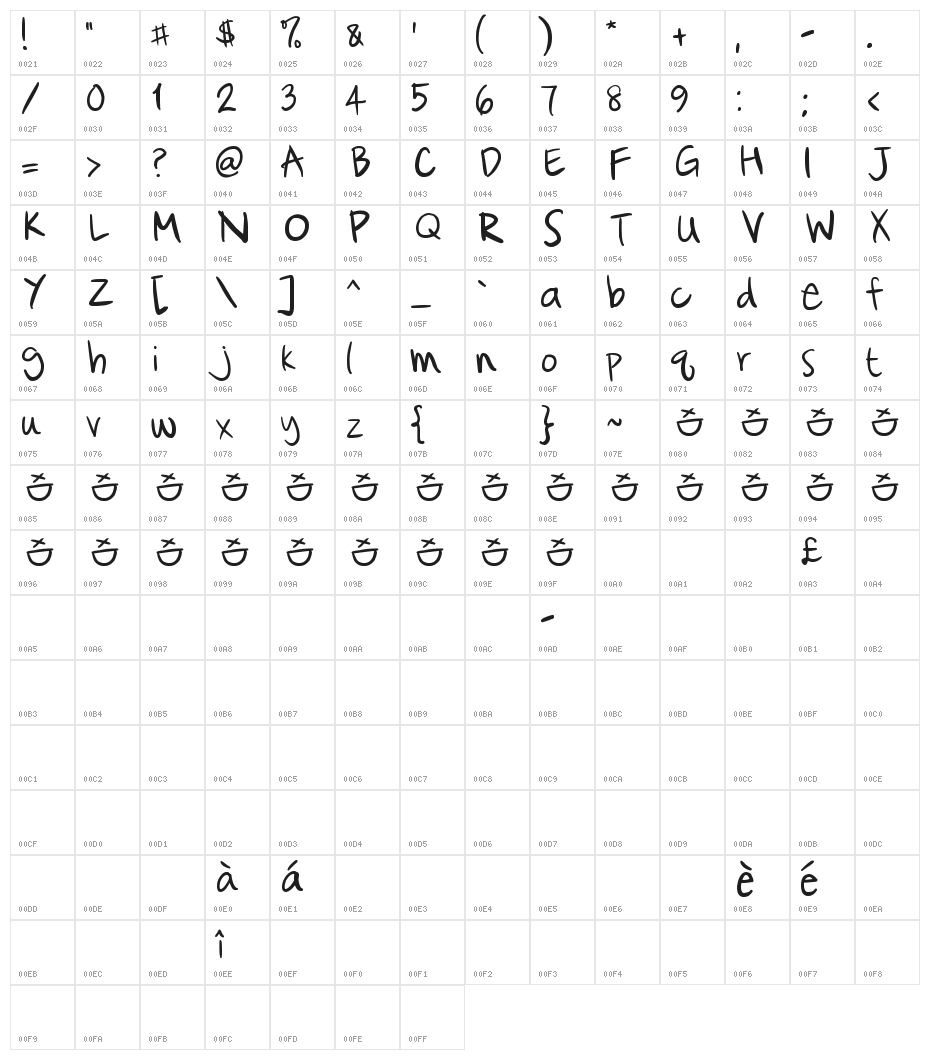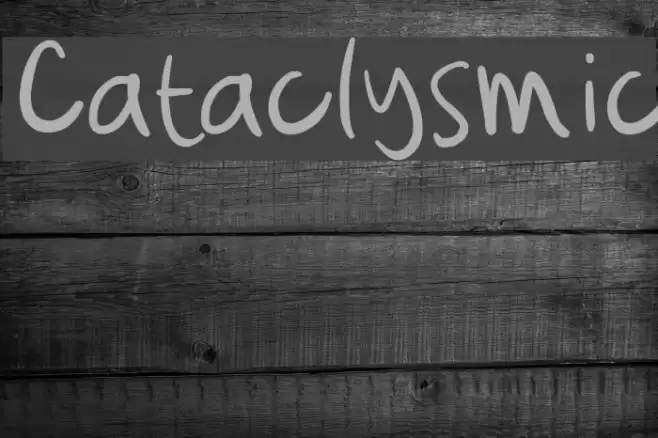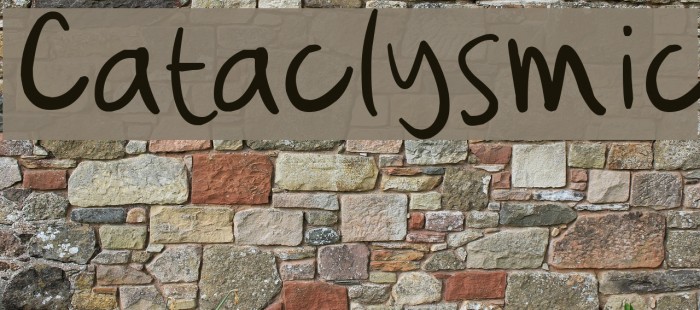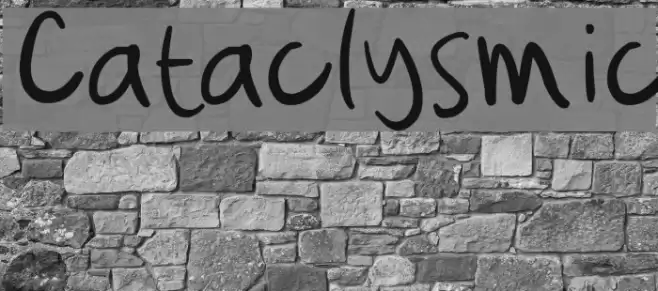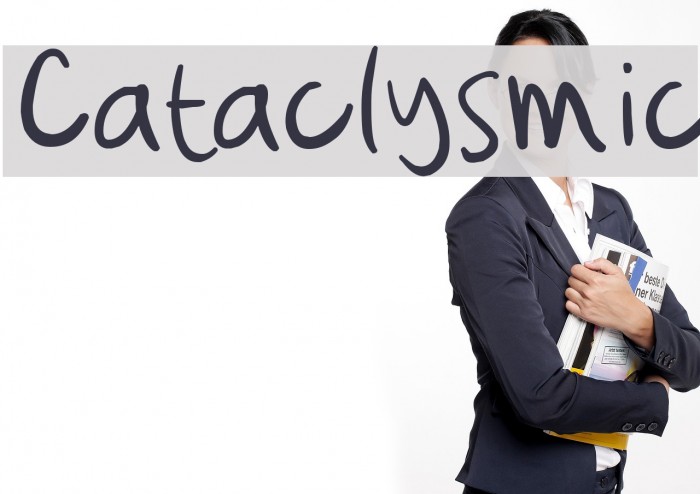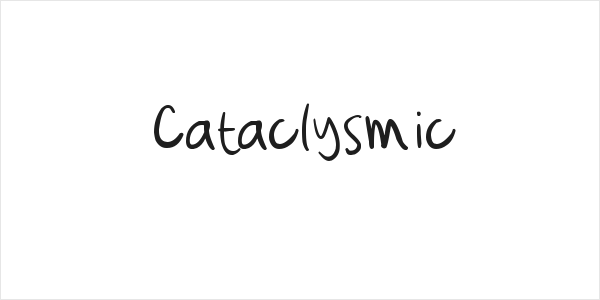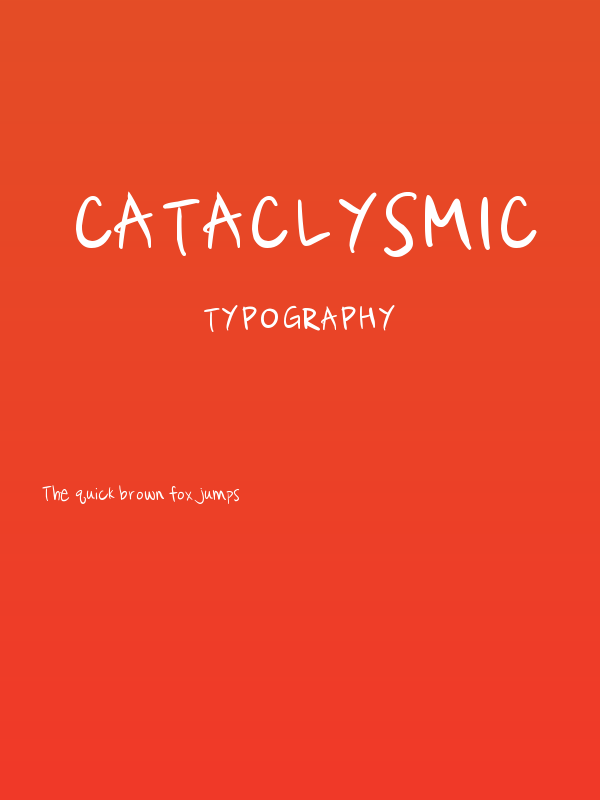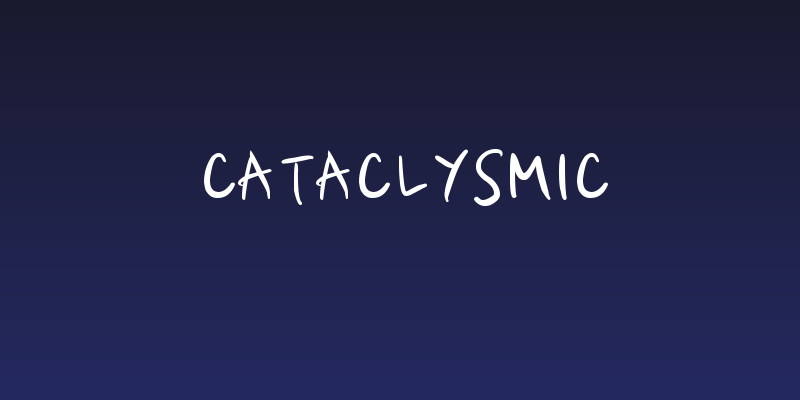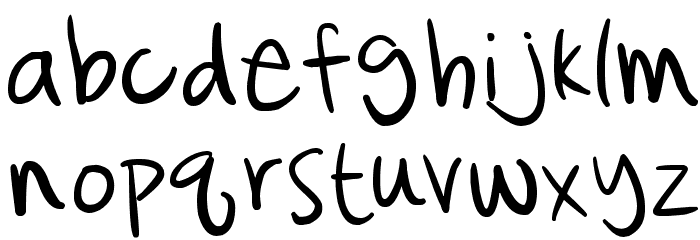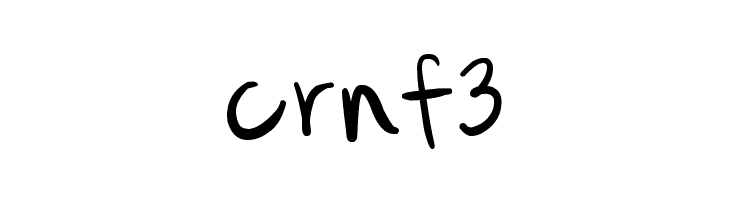
Cataclysmic Font
Cataclysmic Description
This font features a playful and casual handwritten style, characterized by its smooth, flowing lines and slightly irregular shapes. The letters are rounded and have a natural, organic feel, reminiscent of a personal note or informal correspondence. The uppercase and lowercase letters maintain a consistent style, with a slight slant that adds to the dynamic and lively appearance. The numerals and special characters are crafted with the same attention to detail, ensuring a cohesive look across all elements. This font exudes a friendly and approachable vibe, making it suitable for projects that require a personal touch.
| Proposed Projects | Ideal for greeting cards, personal blogs, children's books, and informal branding. |